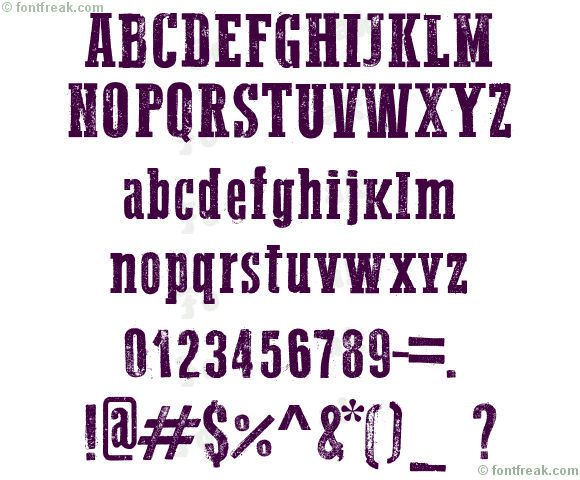
Western Bang Bang
Western Bang Bang is a striking display typeface designed by Galdino Otten Fonts in 2013. This font embodies a bold, western-inspired aesthetic that is perfect for projects requiring a touch of rustic charm. With its decorative characteristics, the Western Bang Bang font features a unique blend of heavy stroke weights and a distressed, slightly weathered appearance, giving it an authentic vintage feel. The contrast in its strokes adds to its visual interest, while the spacing maintains legibility, ensuring that it stands out in any design.
This typeface is particularly well-suited for a variety of applications. It shines in contexts such as cowboy-themed events, including rodeos or country music festivals, where it can be utilized for promotional materials, banners, and signage. Additionally, Western Bang Bang is an excellent choice for movie posters, particularly those in the western genre, as it captures the essence of classic films. Restaurant menus, especially for establishments that emphasize a rustic or southwestern theme, can benefit from its bold presence, making dishes stand out to patrons. Furthermore, graphic designers seeking to evoke a sense of nostalgia or adventure in branding projects will find this font immensely valuable.
The target audience for Western Bang Bang includes graphic designers, small business owners, and content creators who are looking for a font that conveys a strong personality while remaining versatile. The font's unique character makes it an attractive option for anyone who wants their designs to resonate with a sense of authenticity and style.
What truly sets the Western Bang Bang font apart is its ability to blend rugged charm with modern usability, making it a compelling choice for a variety of design needs. For those interested, a Western Bang Bang font free download is available, allowing creatives to incorporate this distinctive typeface into their projects effortlessly.